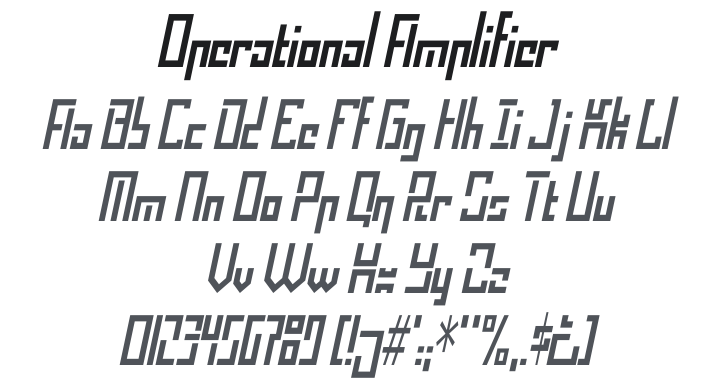
Operational Amplifier Font
About Operational Amplifier
Operational Amplifier is a quadratic, bold techno display typeface raked sharply to the right — its square, pixel-influenced letterforms lean with a decisive forward momentum that feels like data in motion. Despite the italic slant, each character retains rigid geometric precision. Perfect for sci-fi interfaces, cyberpunk branding, electronics-themed designs, tech game titles, and any headline needing cold, calculated technological urgency.